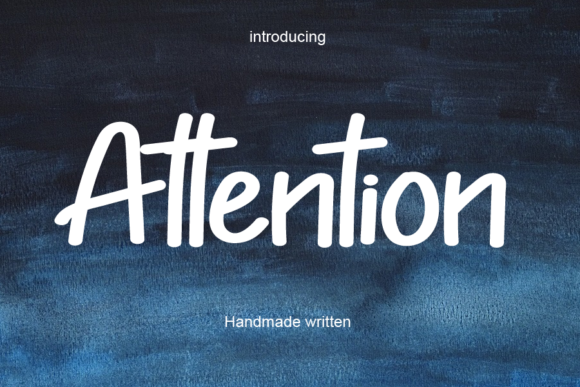
The Charm of Attention Font: A Designer’s New Best Friend
This cute and delicate, lettered handwritten font was exactly what I needed to add a personal touch to the invitation. Its authentic look made it seem like I had handwritten the quote myself. In this article, I’ll share with you why I’m obsessed with Attention Font, its features, and how to make the most of it in your designs.
An Honest Review of Attention Font
- ✨ Authentic look: Attention Font has a unique, handcrafted feel that adds a personal touch to any design.
- ✅ Versatility: It’s perfect for chalkboard quotes, teaching materials, and even wedding invitations or party decor.
- 💖 Cute and delicate: The font’s playful and charming personality makes it perfect for designs that require a touch of whimsy.
While Attention Font is amazing, there are a few things to keep in mind:
- 🤔 Limited character set: Some users have noted that the font’s character set is limited, which might make it difficult to use for certain projects.
- ⚠️ Not suitable for body text: Due to its delicate nature, Attention Font is best used for headings or short quotes, rather than body text.
A Practical Guide to Using Attention Font
The Backstory of Attention Font
Attention Font was designed with the intention of creating a font that would add a personal touch to any design. Its creator wanted to craft a font that would look like it was handwritten with love and care. The result is a font that’s perfect for designers, crafters, and creative hobbyists who want to add a touch of whimsy to their work.